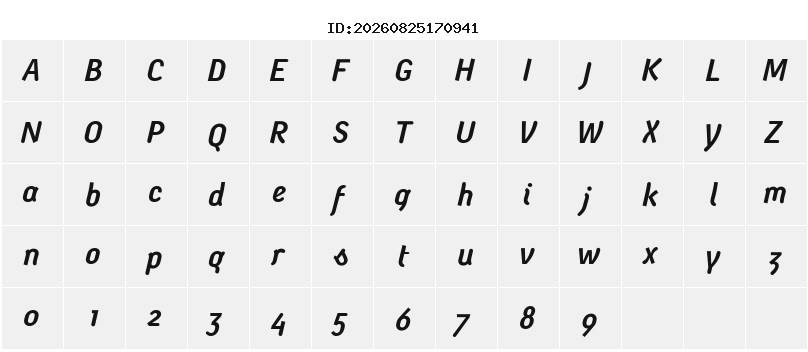
SGIAltExB Preview
• Font Name: SGIAltExB
• Full Font Name: SGIAltExB Italic
• PostScript Name: SGIAltExB-Italic
• Manufacturer: Joseph Stitzlein
About SGIAltExB.ttf
SGIAltExB.ttf is a modern, elegant sans-serif font designed for ultimate readability and visual harmony. Perfect for branding, headlines, web design, and print materials.